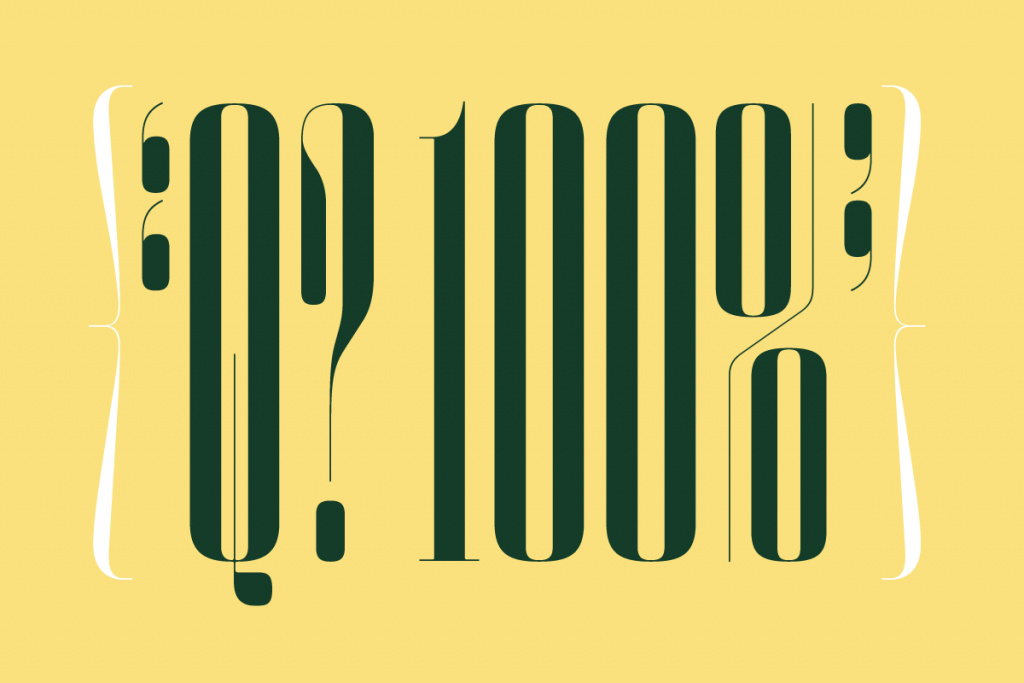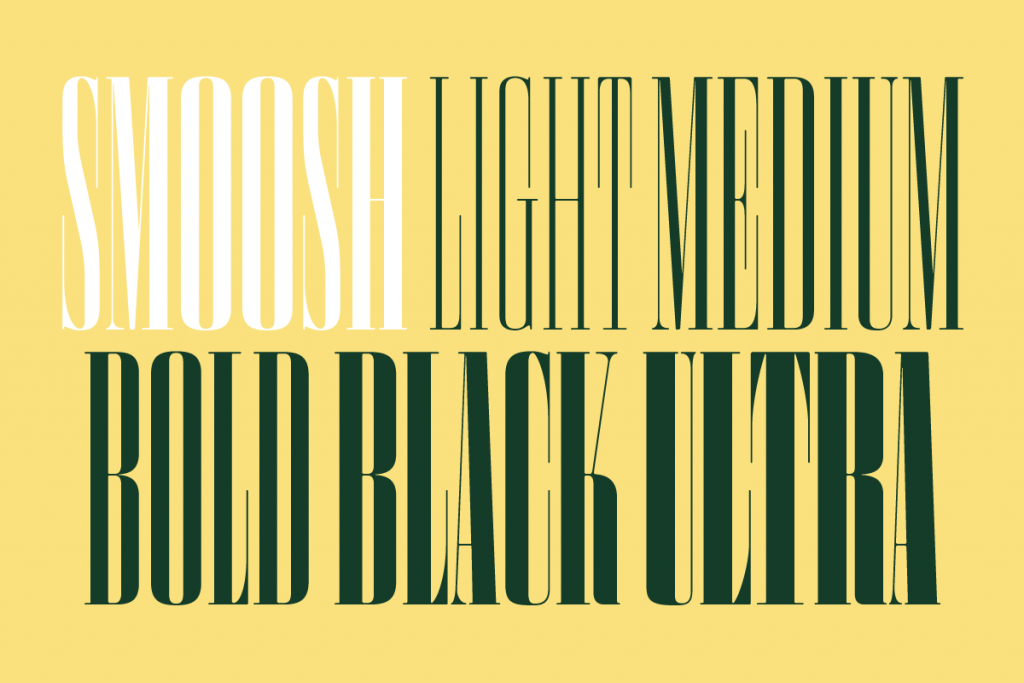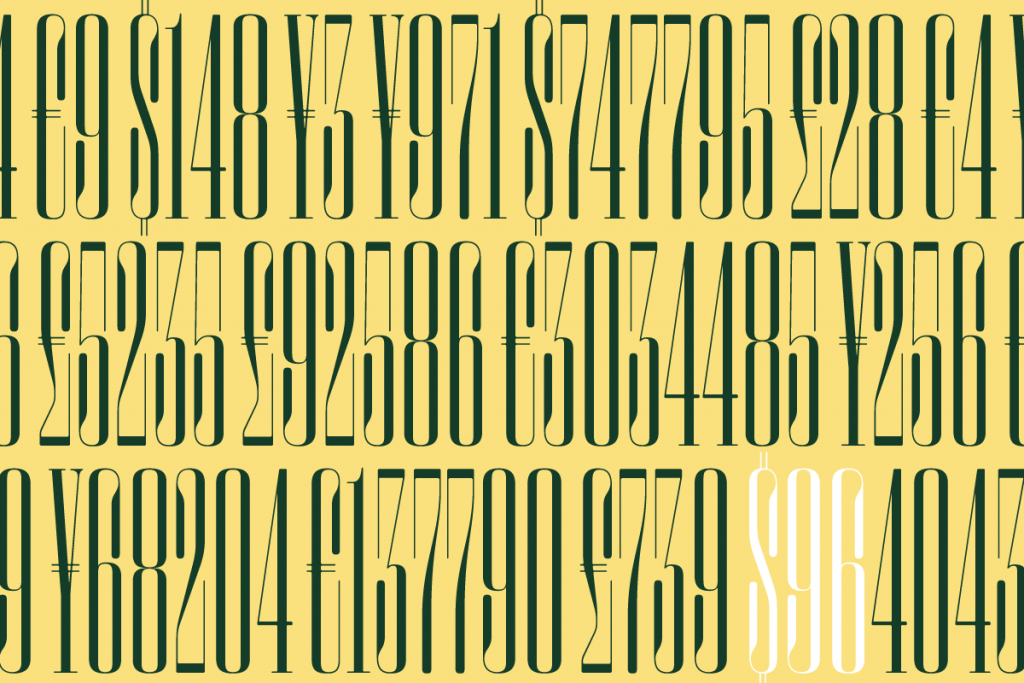
Name: Smoosh
Designer: Tal Leming
Foundry: Type Supply
Release Date: September 2021
Back Story: Smoosh was born, appropriately, thanks to sex — more accurately, thanks to a lettering commission from Wired magazine for its sex issue back in 2015. The layout designer, Caleb Bennett, showed Tal Leming of Baltimore-based type studio Type Supply some letterpress-like type and asked if he could draw some headlines in the same style. He was given just two days to do so.
The sample he was shown was a hyper condensed typeface similar to Bodoni in style, “probably an old wood type from over a hundred years ago,” Leming says. “I told them that there was no way I could draw all of the headlines as unique lettering in that time, but I could make a font with just enough letters and numbers for them to typeset the headlines.”
Leming then drew a pretty faithful reinterpretation of their sample, but, as he puts it, “it was boring. Think Bodoni, but very condensed.” The designers at Wired tried it out, and felt it wasn’t working — they needed something weirder. So Leming went back to the drawing board and began work on a font with stroke weight contrasts that were “as extreme as possible.”
All parties were happy with the new version, but Leming says he hated the numbers. A few weeks later he added some new weights and optical sizes so that the hairlines would always be ridiculously thin. “I pretty much drew the first version in one day. I didn’t have time to second guess, revise or anything,” he says. “What you see is what popped into my head when I thought, ‘What would high-contrast, very condensed and weird font look like?’ It was a very visceral, almost athletic process.”
“This project changed the way I approach type design”
Since that Wired commission six years ago, Leming occasionally received requests to license the font. It decided to formally release it in early 2020, just before the pandemic broke out. As such, it was filed away for a bit and finally released in September this year. He’s already made a pixelated variation on Smoosh.
“This project changed the way I approach type design,” Leming says. “The result made me realize that I had reached a point in my career where I could trust my instincts. Caleb and I used the same process to make some typefaces for his work at Condé Nast Traveler. I have a bunch of typefaces I’ve designed using this process that I’ll be releasing through my retail collection over the next year or two. I love working this way.”
Why’s it called Smoosh?
Thanks to those intense contrasts. “Because it is smooshed,” says Leming. It’s as simple as that really. “I needed a name for it and that was the first thing that popped into my head,” he adds.
What are its distinguishing characteristics?
Smoosh is a hyper-compressed, aggressively high-contrast typeface with extremely pointy serifs that is billed as bearing “delicate, obnoxious forms.” Smoosh is all about making contrasts as extreme as possible. “There are a lot of things that don’t make sense, but look right, such as the nearly square curves and the ridiculously small bracketing at the serifs,” Leming explains. During the design process, the terminals in the figures presented a huge challenge. These are typically rounded in the style of modern typefaces like Didot and Bodoni; while “squished” rounds were transformed into serifs that take rounded rectangular forms. “In isolation those look like some kind of 1970s space font,” says Leming. “Smoosh is full of contradictions and things that should not work but somehow do.”
What should I use it for?
Since Smoosh has such unusual, distinctive forms, it’s very much the kind of font that would work well for applications where the text needs to stand out – think posters, billboards, record sleeves, and perhaps as a brand font for a particularly brave brand. “It should be used big. Very big. It should also be used sparingly. Very sparingly,” Leming advises.
What other fonts should I pair it with?
Since Smoosh is so unique, and marries very classical forms with out-there modern twists, it’s pretty adaptable and could work with fonts across the safe/weird spectrum. “think it could work with anything. You could use it with a pretty modern, a boring sans serif, a brush script or anything,” says Leming. “I’ve been thinking about this for five minutes and I can’t think of a single thing that Smoosh wouldn’t work with. Now that I think about it, this may be its strangest characteristic.”